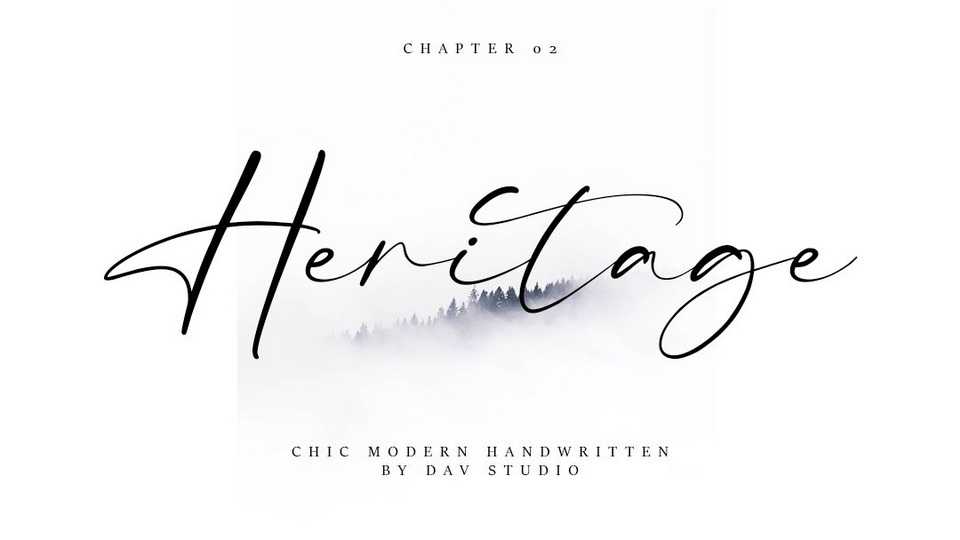
Download Heritage font, a smooth, beautiful, and lovely handwritten typeface. Heritage font has a beautiful and balanced character and fits all your design needs.
Designer: Dav Studio